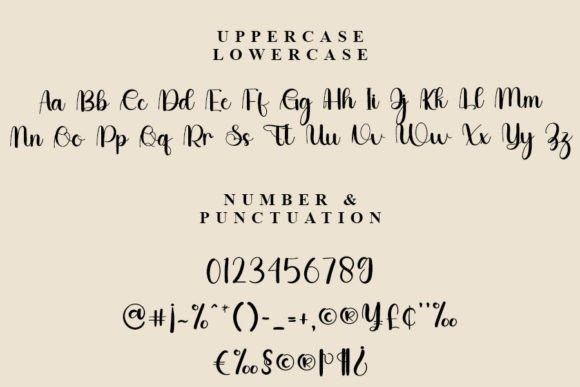
Selling Font
Selling Font is a beautiful and refined handwritten font. Classy and modern, it is perfect for logos, branding, invitations, stationery, wedding designs, social media posts, and much more!